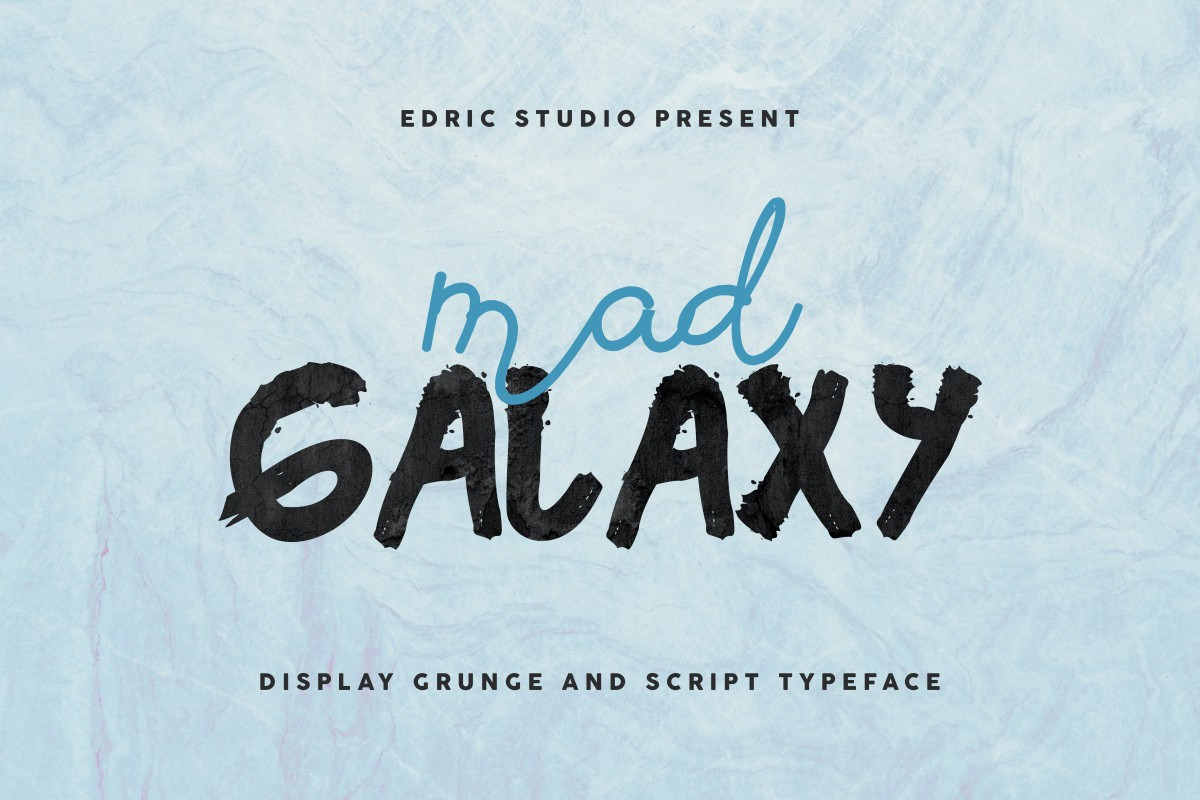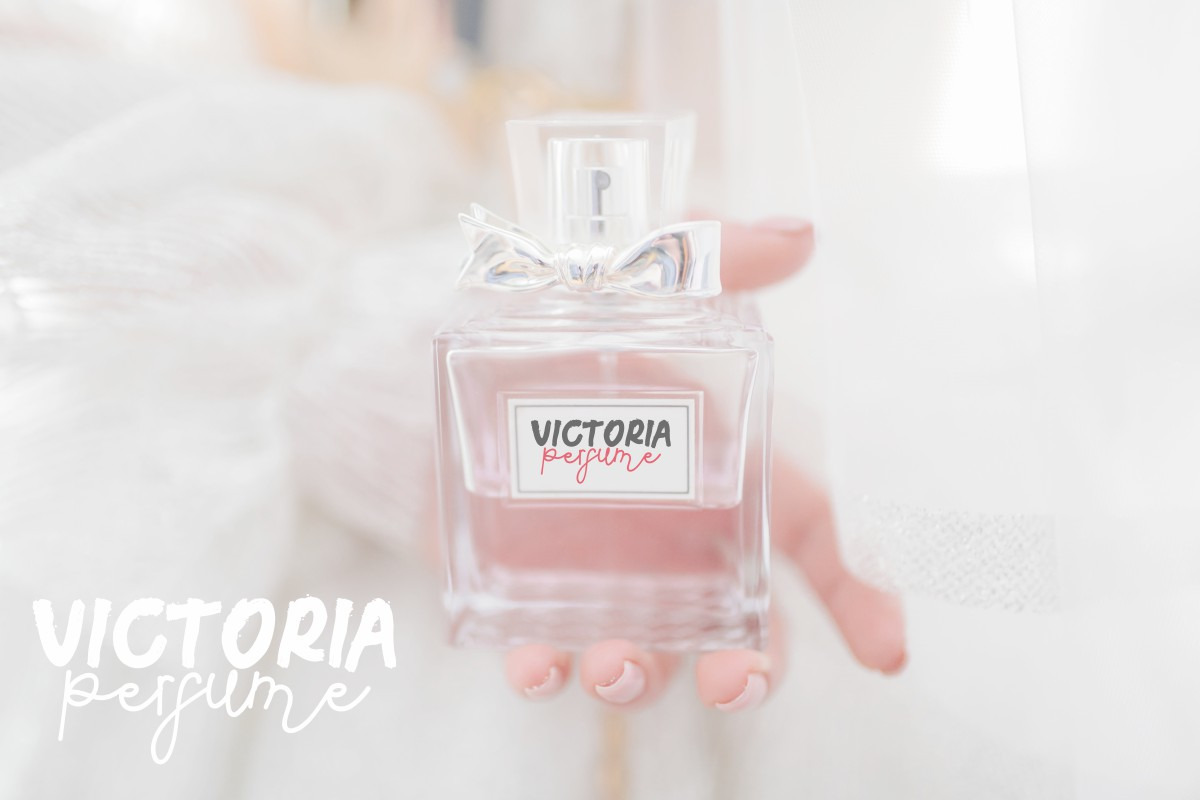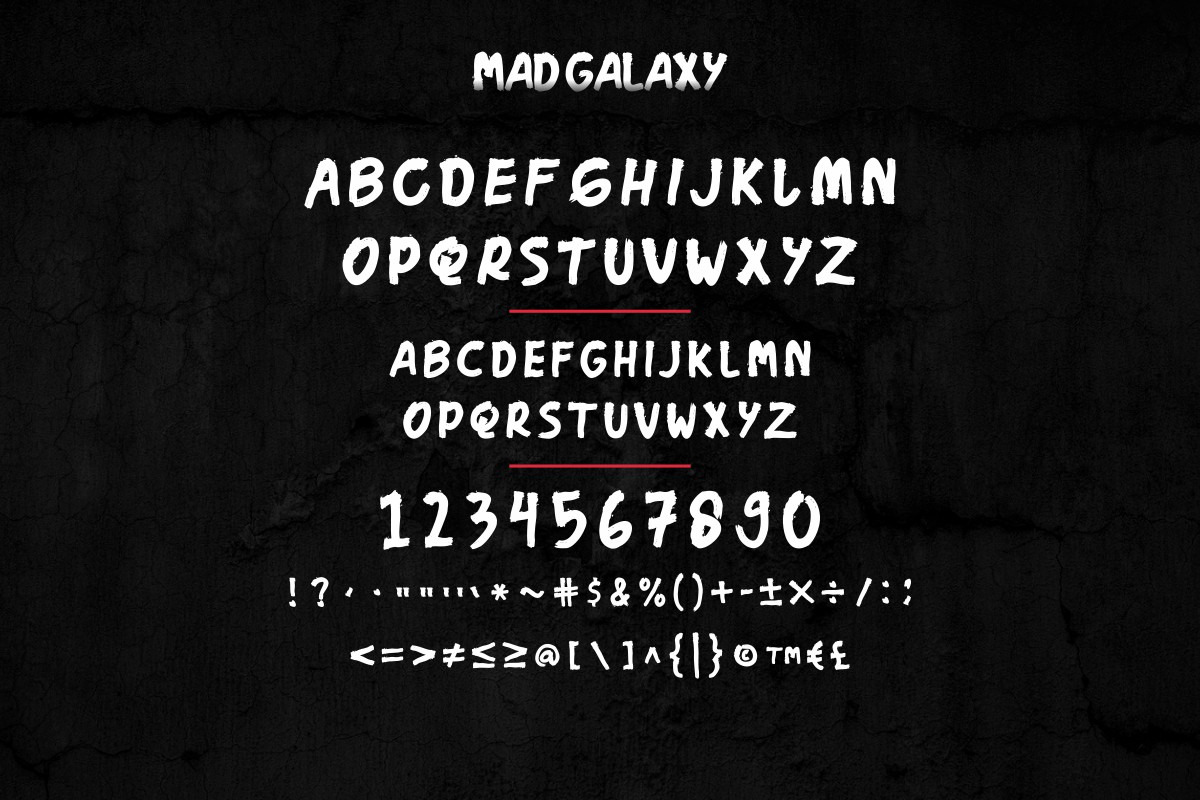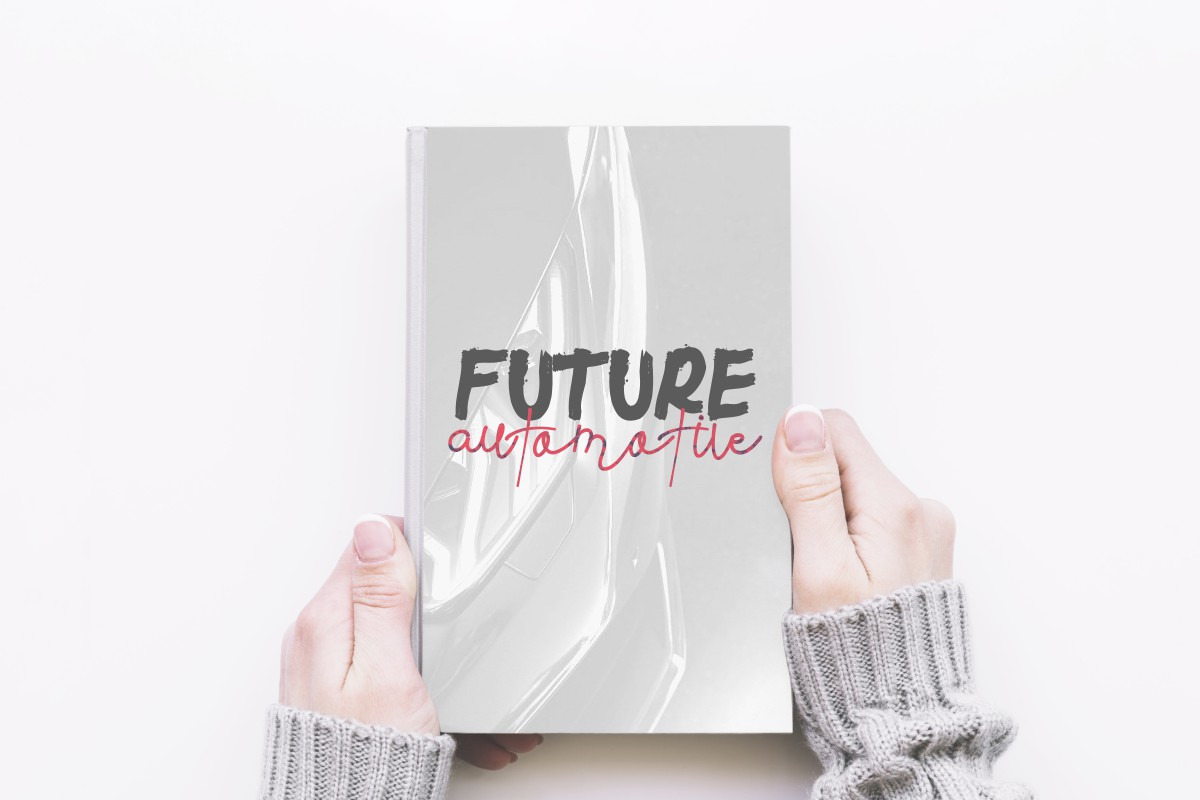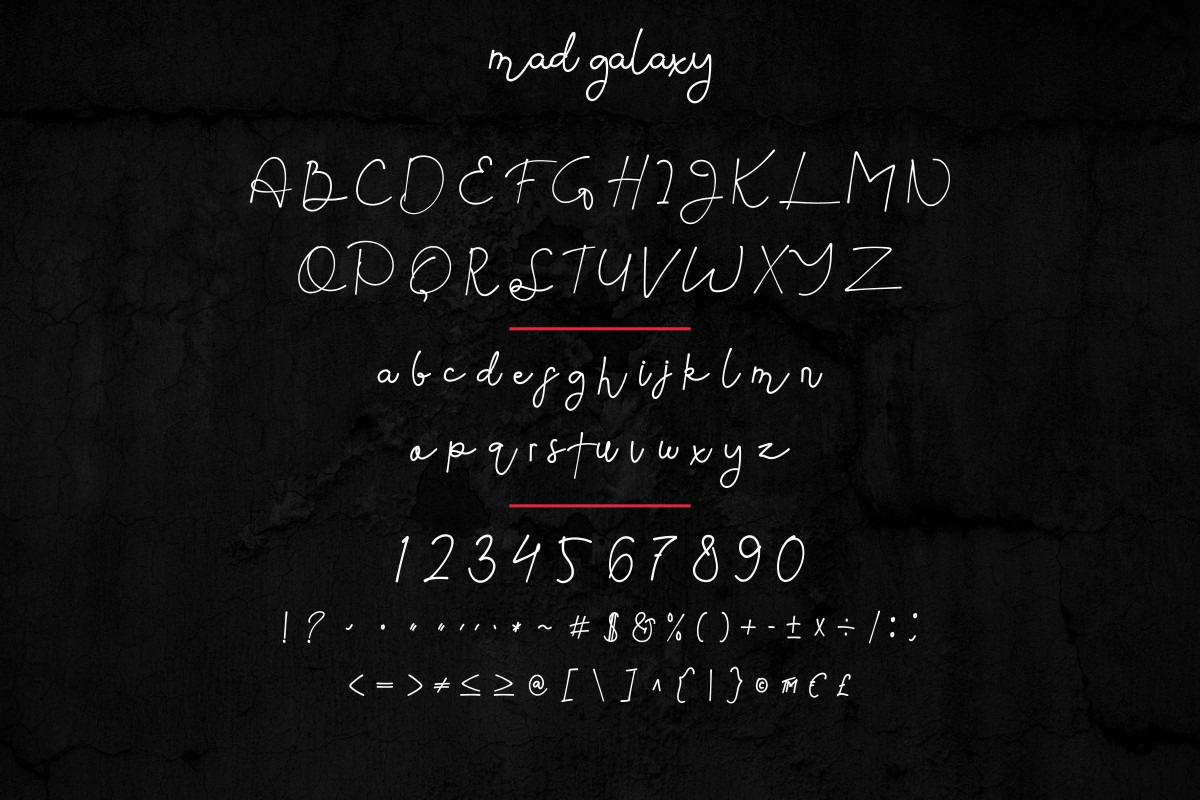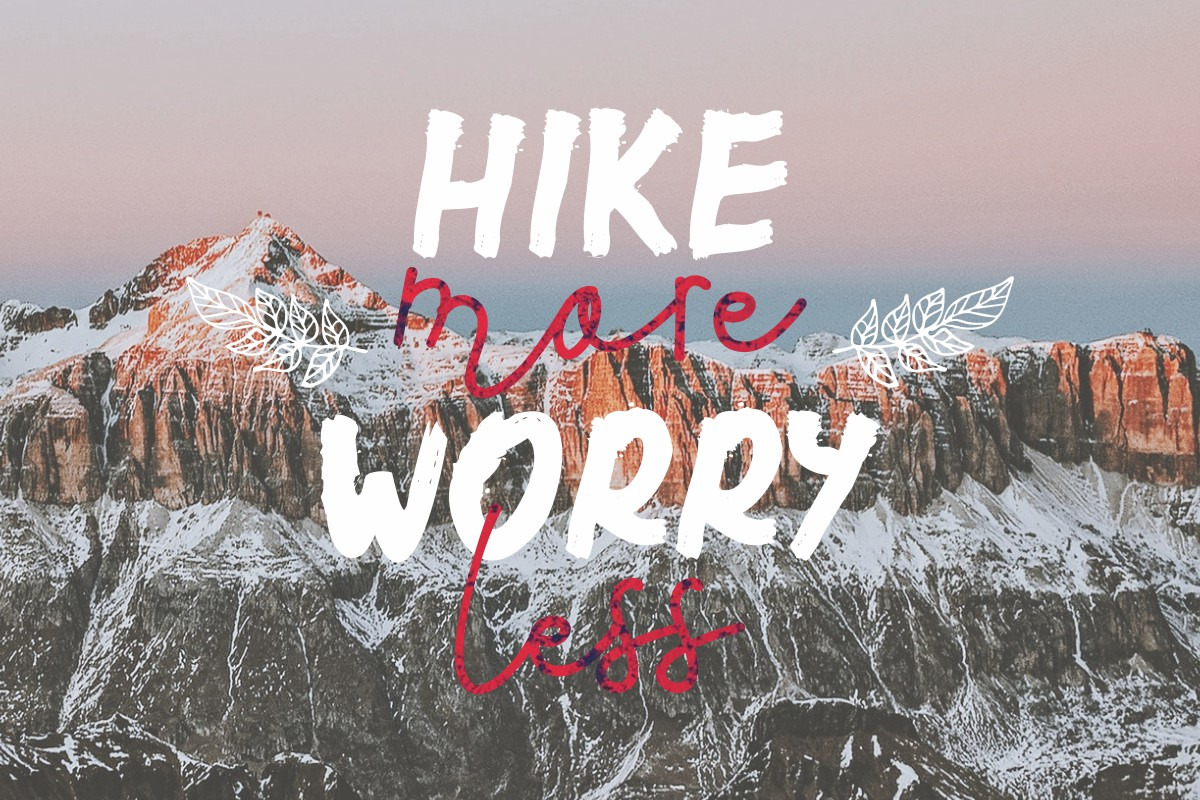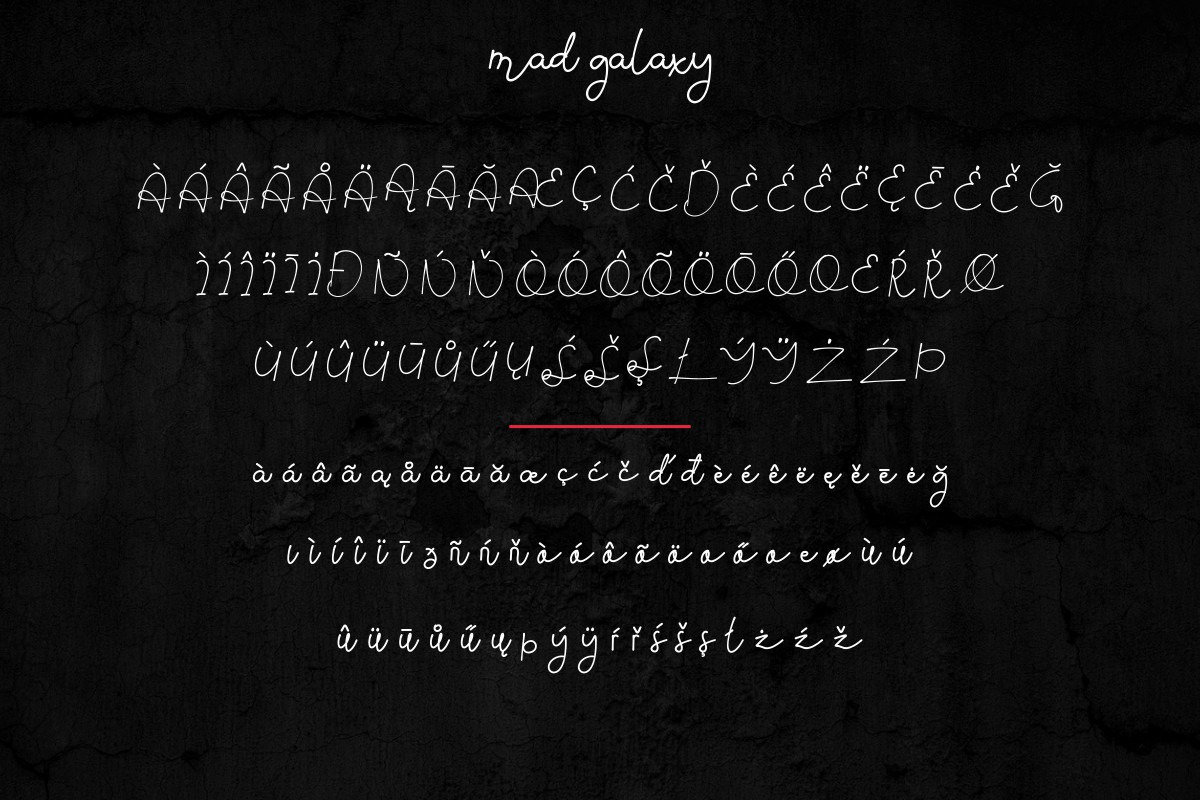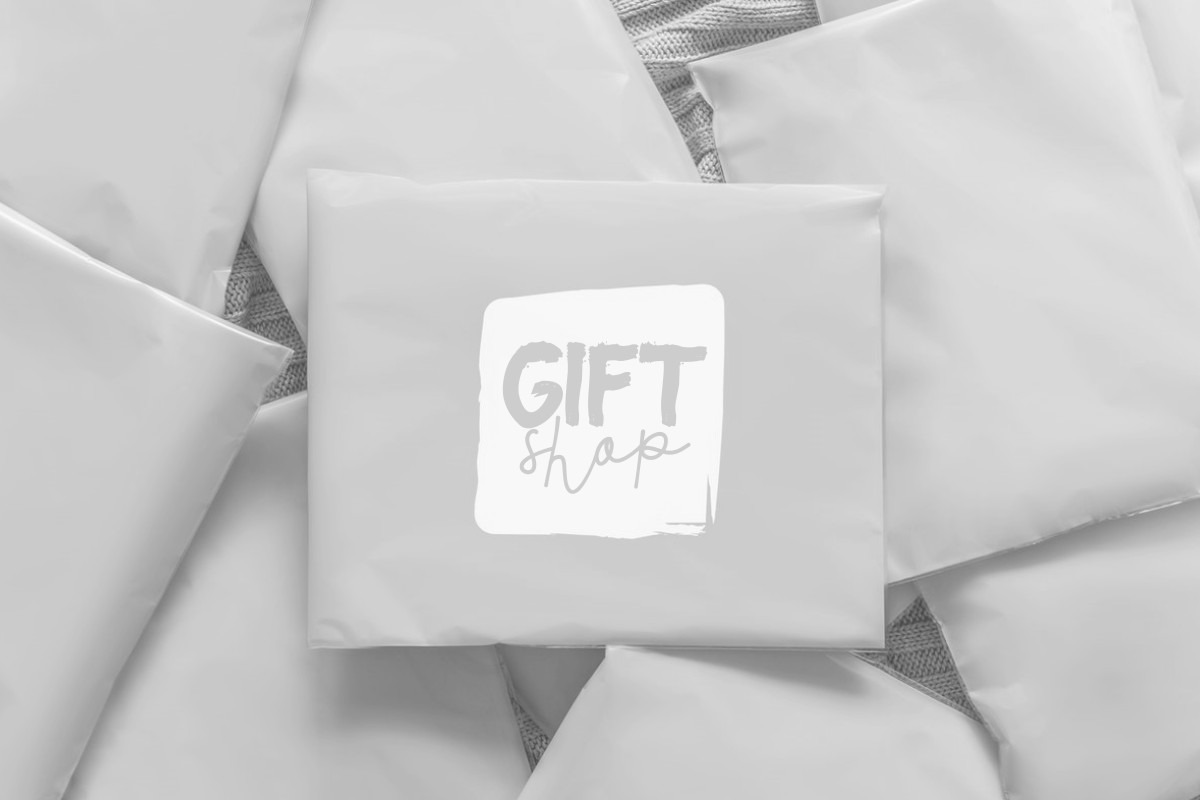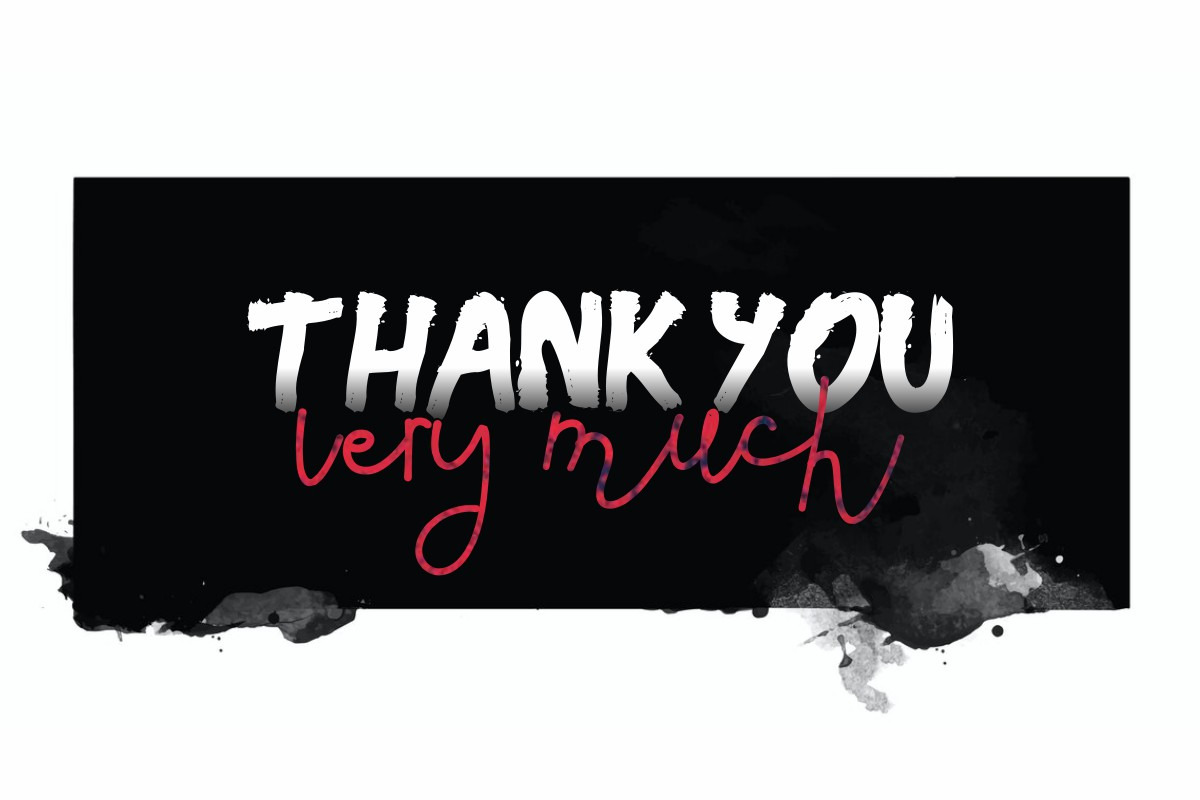
Mad Galaxy Font Duo
This is a Font Duo Family, handcrafted from our Studio here in Indonesia. The artists/designers are Yasri and Sarah.
Mad Galaxy Duo is an exclusive font family with two different styles. This font has a great characters set, perfectly managed with well spaced and kerning. The theme style of this font will unique, vintage, stylish, sophisticated and rough brush calligraphic style.
Mad Galaxy Duo will be great for any projects including : branding, logo, stationery, business card, signage, flyer, brochure etc. Almost all industries will be match for this typeface: wedding, events, music, concert florist, gardening, makeup artist, travel, musician etc